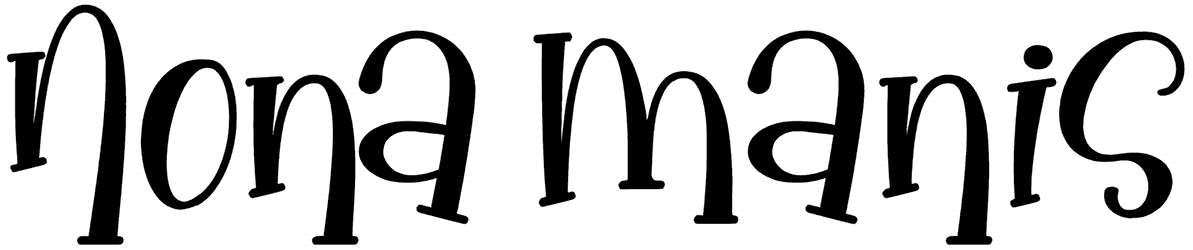
Nona Manis Font
Illustrations, social media posts, product packaging, magazines, or stationery are the best possible fields for utilizing a lovely cartoon font such as Nona Manis. This masterpiece comes in three distinctive styles and broadens your horizons. In addition, it can help you to share a sense of dynamic, playfulness, and vitality with the audience.